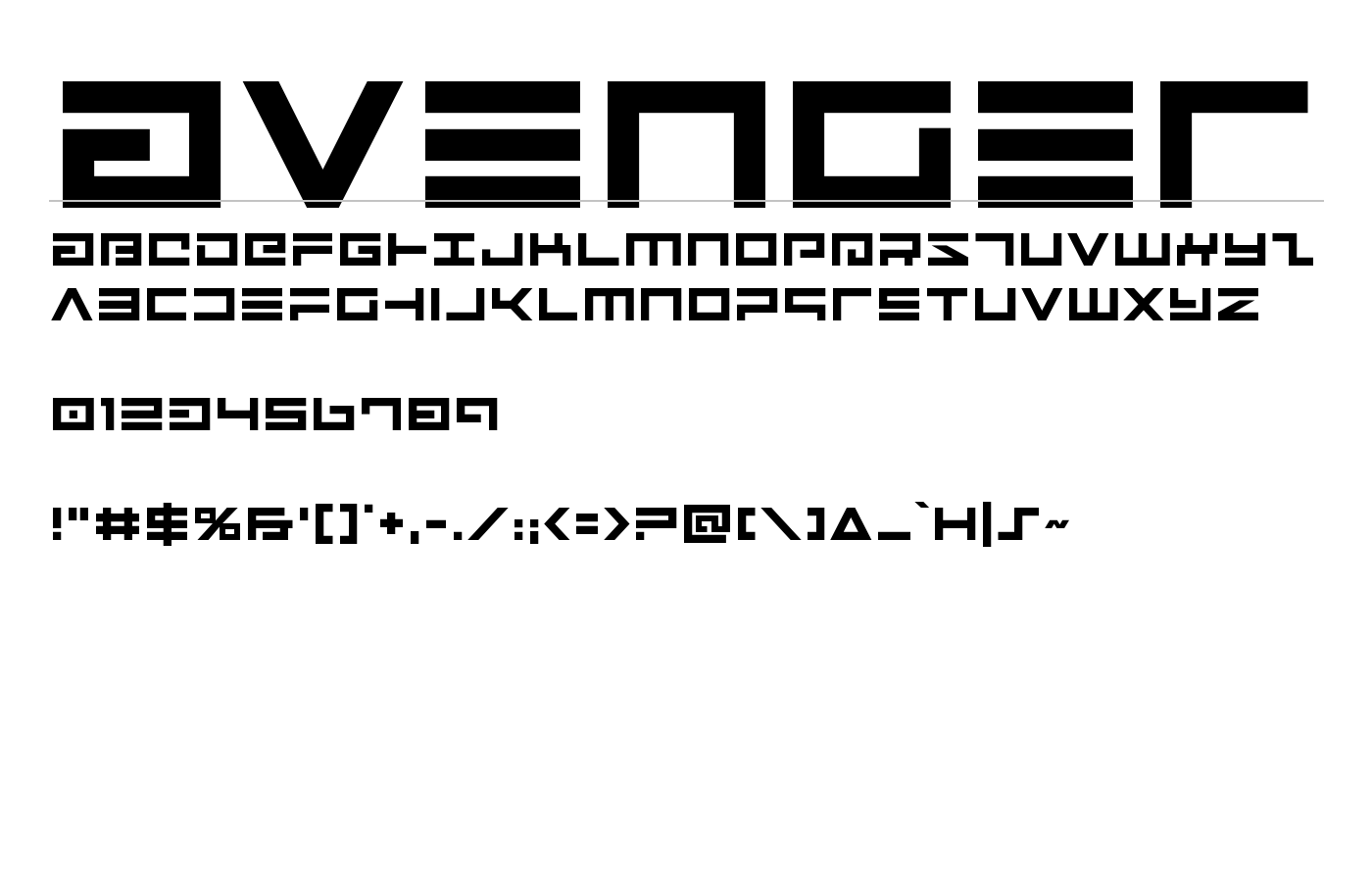
Avenger is a bold, geometric sans serif font with a modern, futuristic feel. Its strong, angular shapes and high contrast in stroke widths give it a dynamic and tech-inspired personality, ideal for impactful headlines, posters, and branding that demands attention. This font works best in designs needing a modern, edgy look with a sense of innovation and strength.
Avenger Font
About Avenger Font